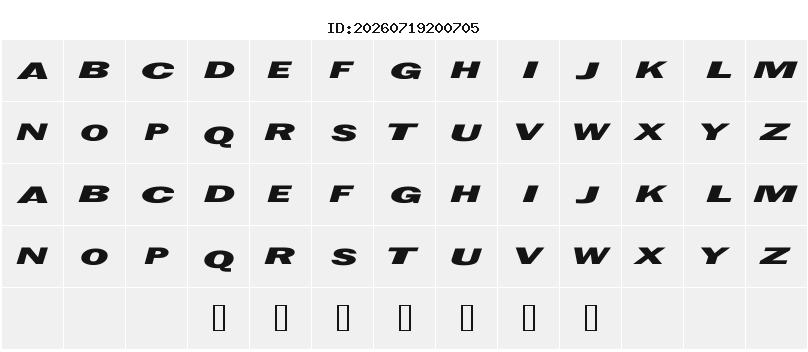
Espionage Preview
• Font Name: Espionage
• Full Font Name: Espionage
About Espionage.ttf
Espionage.ttf is a modern, elegant sans-serif font designed for ultimate readability and visual harmony. Perfect for branding, headlines, web design, and print materials.